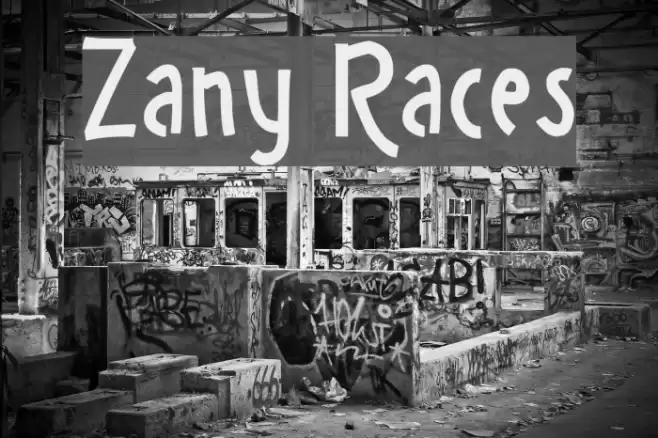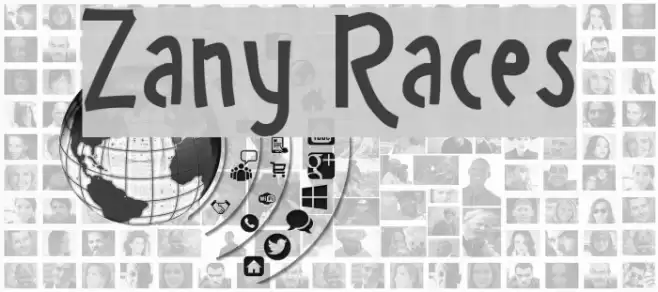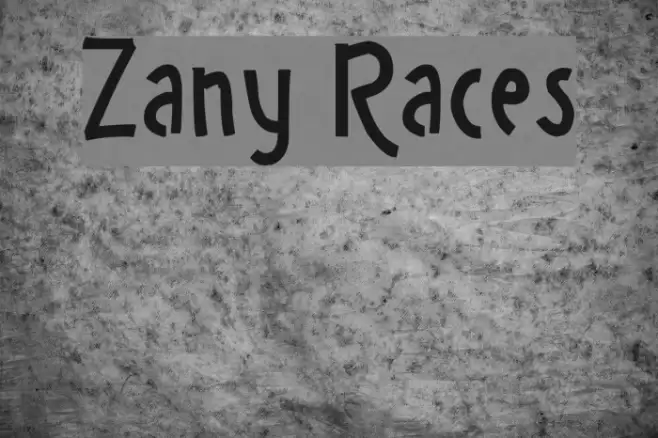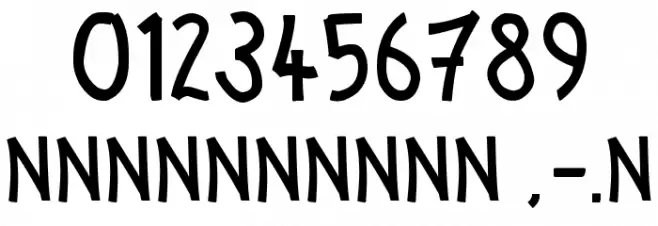
Zany Races Font
Zany Races Description
This playful and whimsical font features irregular, hand-drawn characters that convey a sense of fun and spontaneity. The uppercase and lowercase letters are slightly tilted and vary in size, adding to the quirky aesthetic. The numbers and special characters maintain the same lively style, making the font suitable for creative and informal designs. The strokes are consistent in thickness, providing a balanced look despite the irregular shapes. This font is ideal for projects that aim to capture attention with a lighthearted and dynamic feel.
A playful, hand-drawn font with irregular, whimsical characters from Uncategorized fonts.
- Proposed Projects: Children's books, comic strips, playful branding, party invitations, and creative posters.